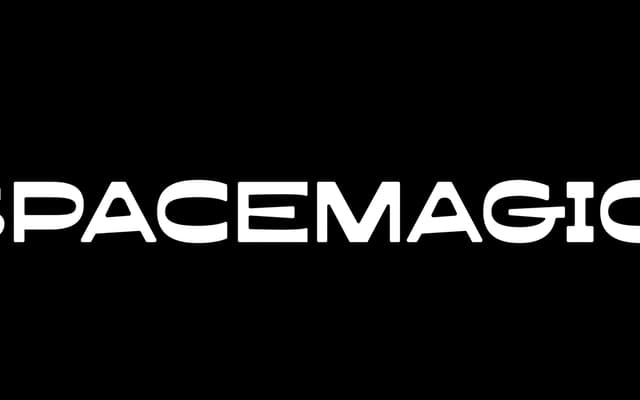
Spacemagic
An all-caps display face with a retro space-age character, drawn from childhood memories of planetarium visits.
Spacemagic is an all-capitals display typeface from Yeahright Type with a funky, retro personality rooted in mid-century space-age aesthetics. The design takes its cues from the wonder and unease of school planetarium trips, giving it a nostalgic quality suited to headlines, posters and branding where personality is the priority. Sold as a single style with a commercial licence add-on available.
An all-caps display typeface with an explicitly retro, funky aesthetic inspired by mid-century space-age imagery, placing it firmly in the display category with a retro subcategory.